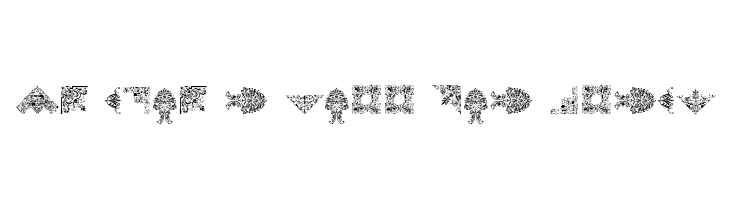
Ornate Victorian-inspired ornamental glyphs.
Ornate Victorian-inspired decorative ornaments and borders.
A bold, decorative font with a Victorian, gothic-inspired style.
A bold, decorative font with Victorian-inspired, ornate details.
An ornate Victorian Gothic font with elaborate flourishes and decorative elements.
An ornate Victorian Gothic font with intricate swirls and flourishes.
An ornate and decorative font with Victorian elegance.